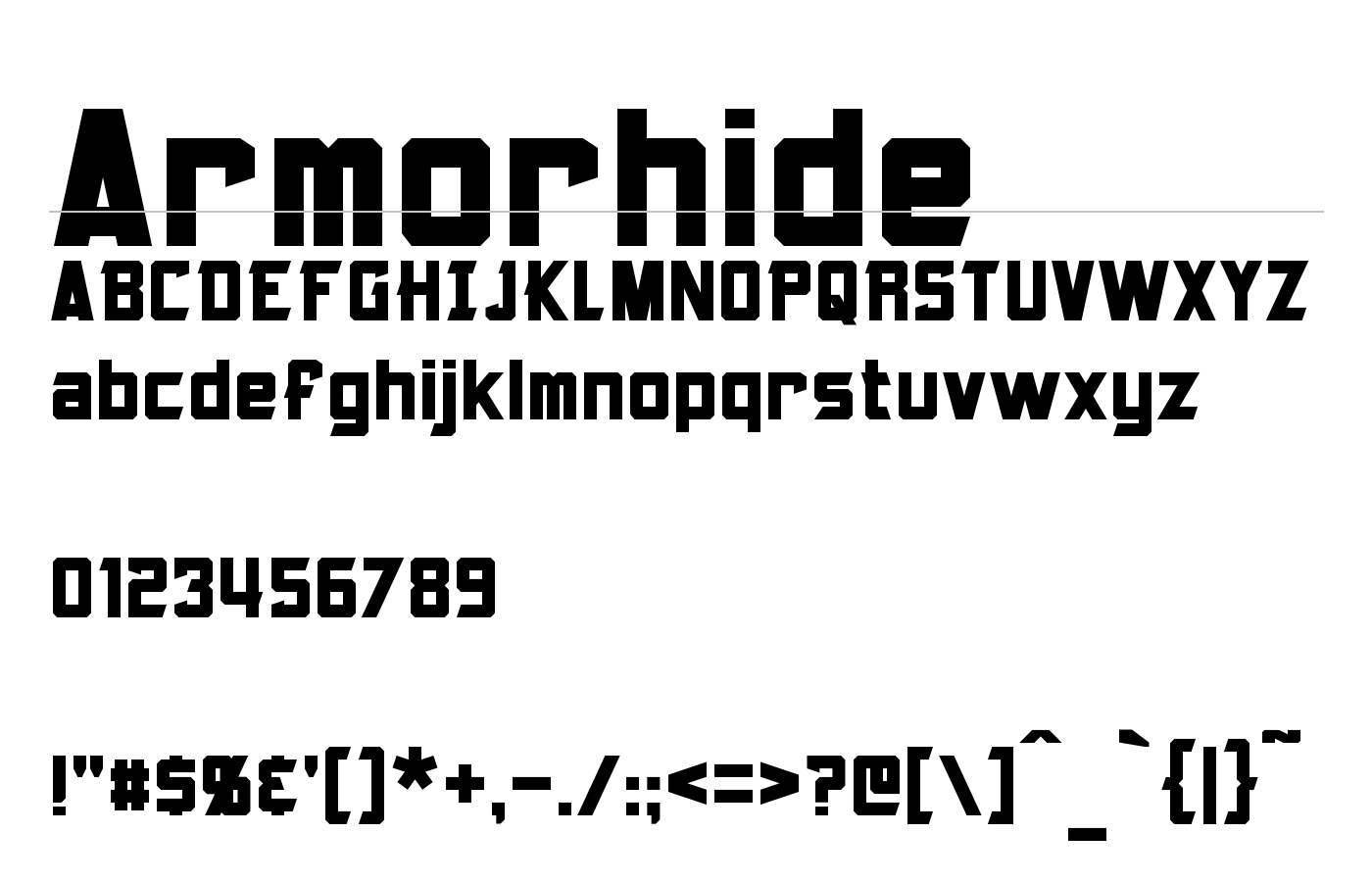
Armorhide is a bold, geometric sans serif font with a sturdy, industrial feel created by its sharp angles and blocky shapes. Its condensed width and high x-height give it strong presence and readability, making it ideal for impactful headlines, logos, and branding that require a modern, tough, and assertive look. This font works well in designs that want to convey strength, reliability, and a futuristic or tech-inspired vibe.
Armorhide Font
About Armorhide Font